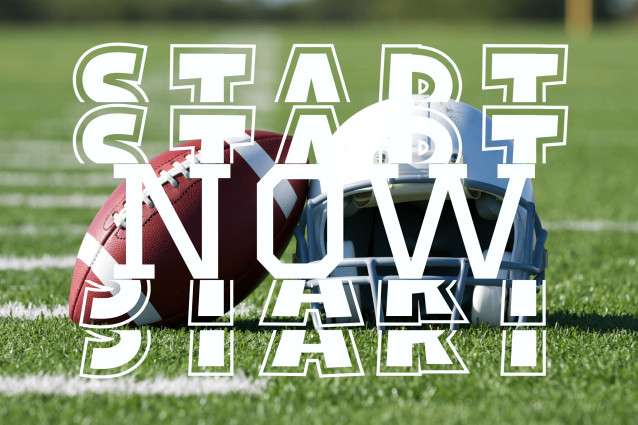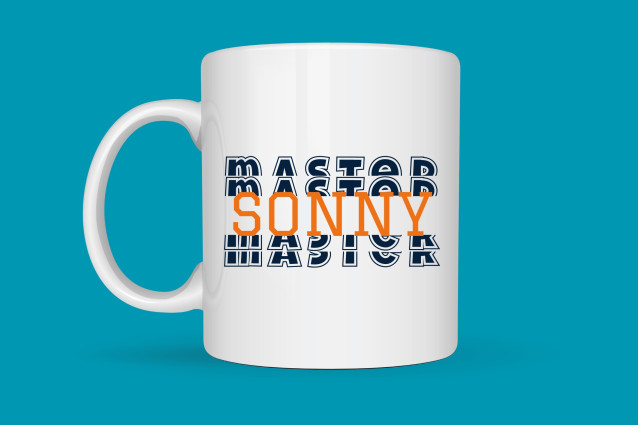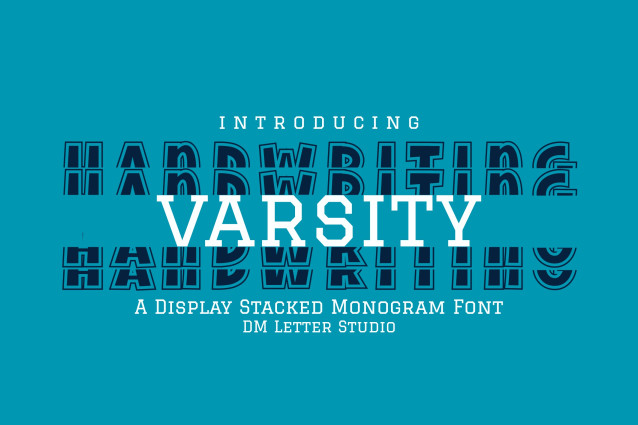
Handwriting Varsity Stacked Monogram Font
Handwriting Varsity Stacked Monogram is a unique font that blends the confidence of varsity lettering with a playful handwritten touch, arranged in a stacked monogram style. It’s perfect for personalizing school gear, class projects, sports team logos, spirit wear, teacher resources, and youthful branding. This font delivers both personality and boldness, ideal for monogram-focused designs that need to stand out.